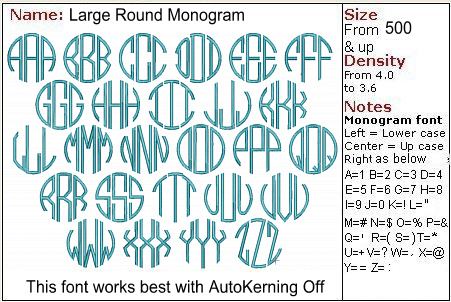
Large Round Monogram
A variation of the Round Monogram But for Large letters. The column on this font is thin which makes it appropriate for large monograms of over 2 inches